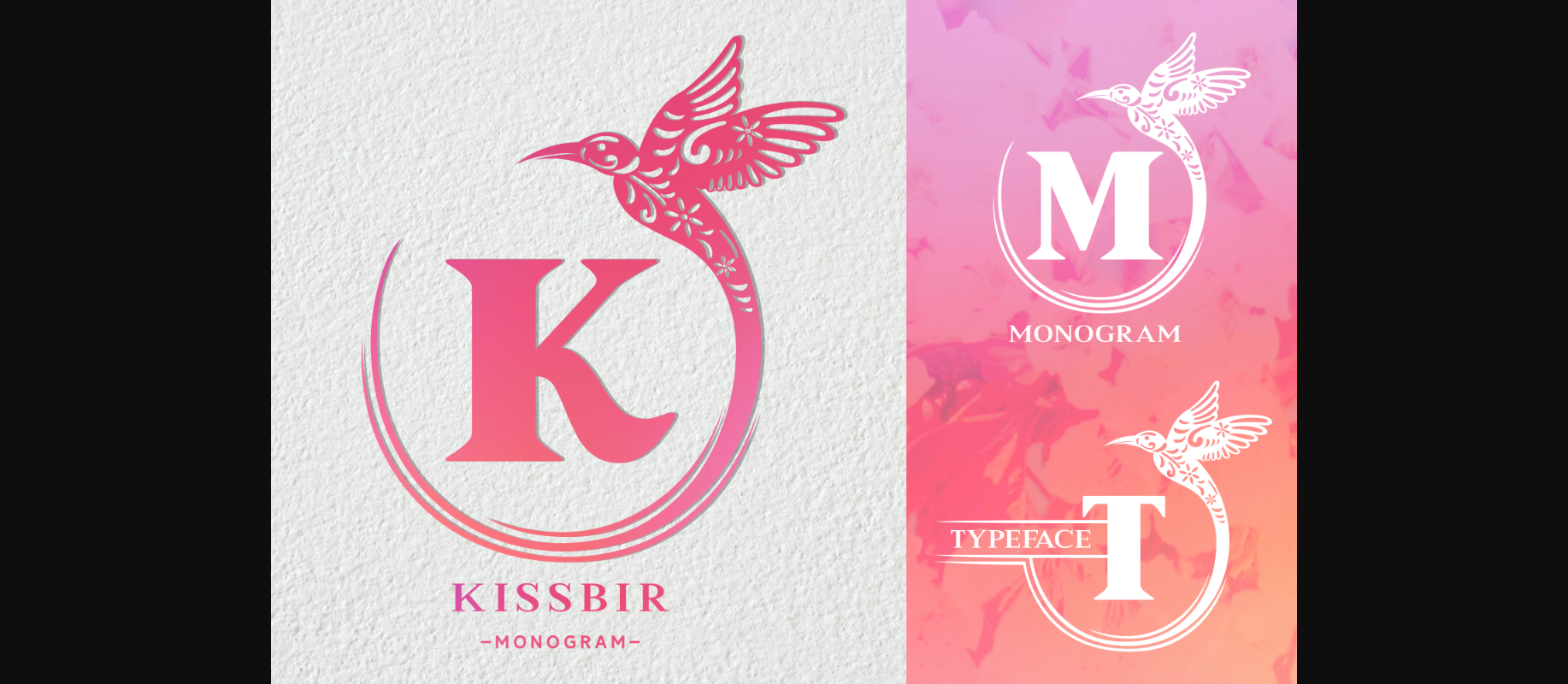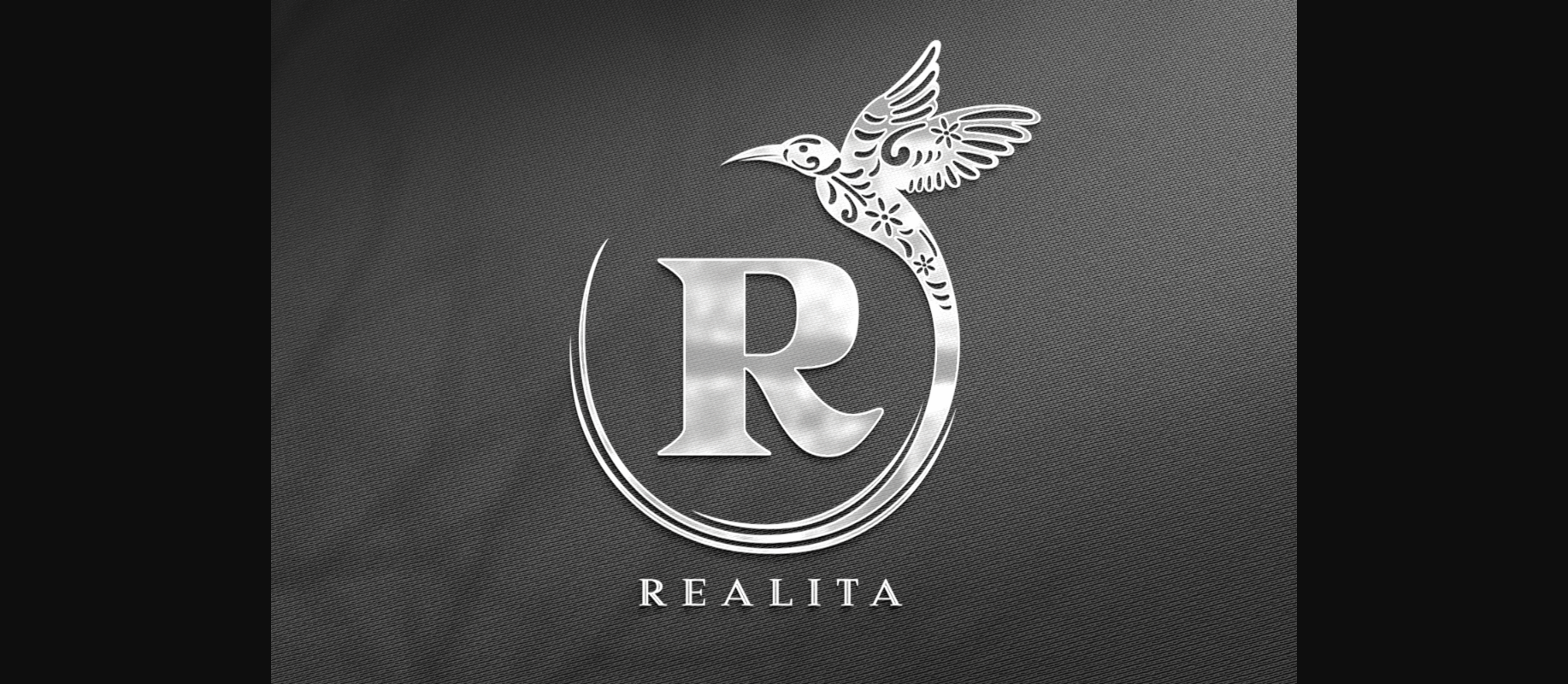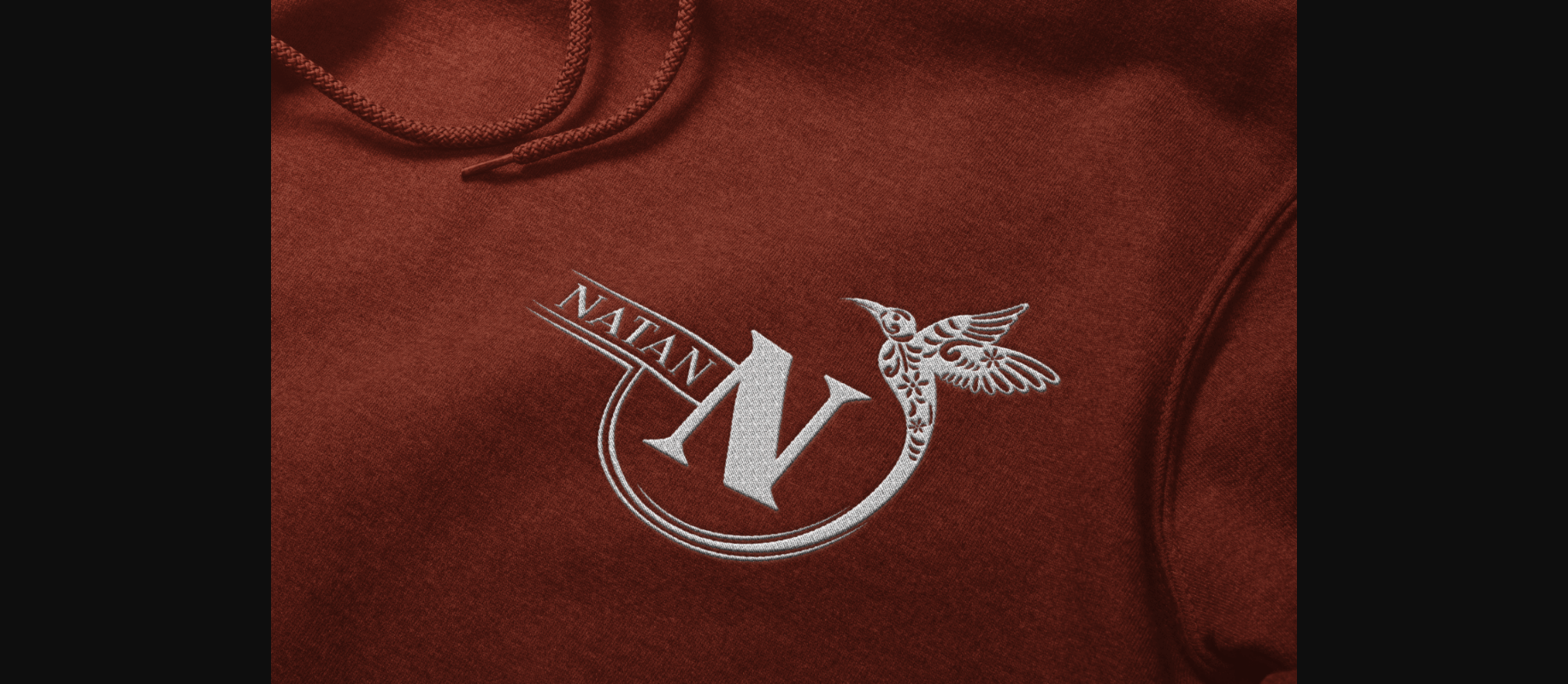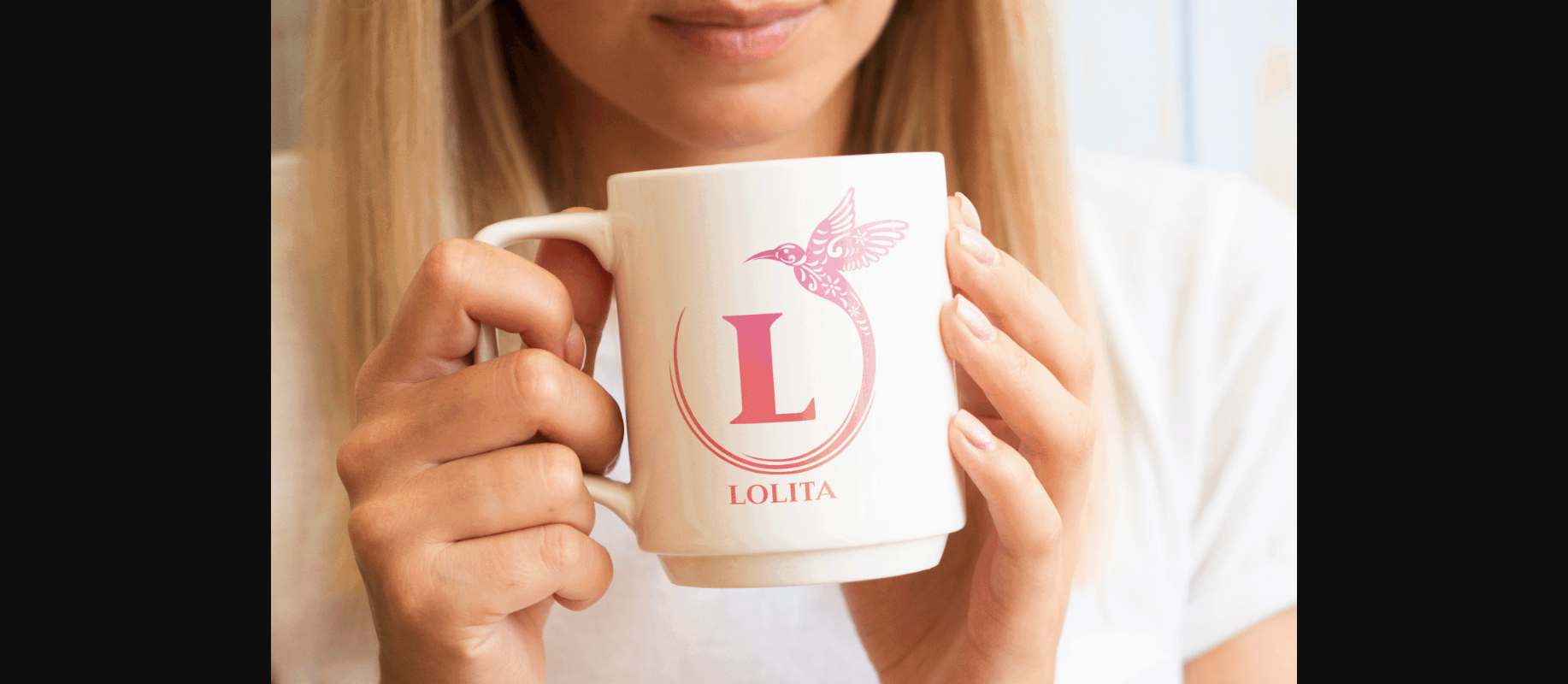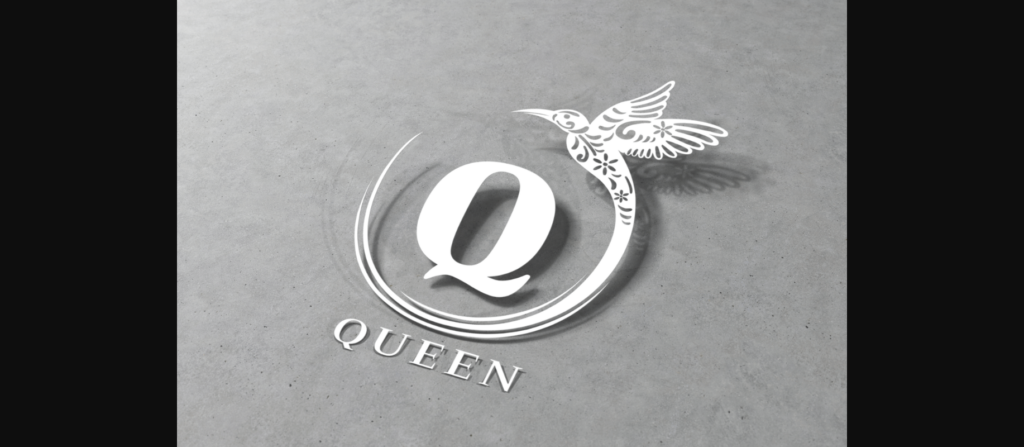
Kissbir Font
About Kissbir Font
This monogram font exudes elegance and modernity, with clean and simple lines that create a sleek and sophisticated look. The letters are bold and well-defined, with subtle curves and serifs that add a touch of personality.